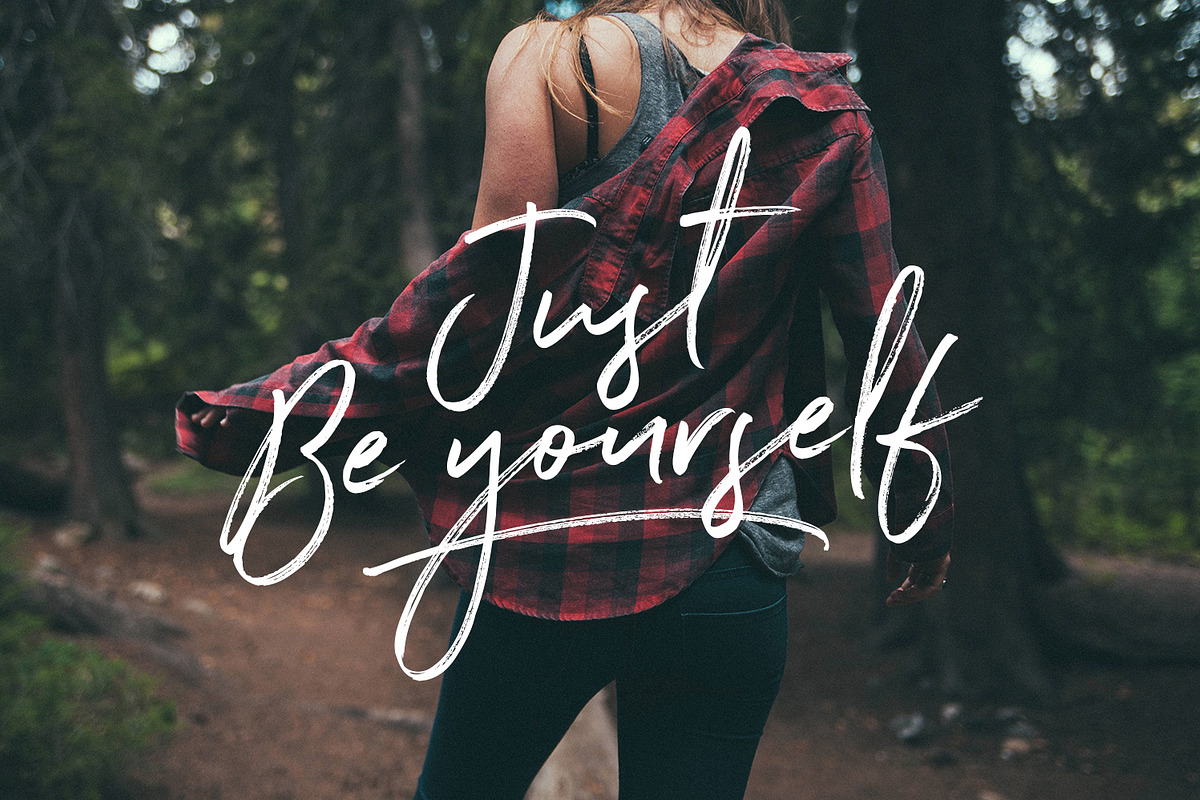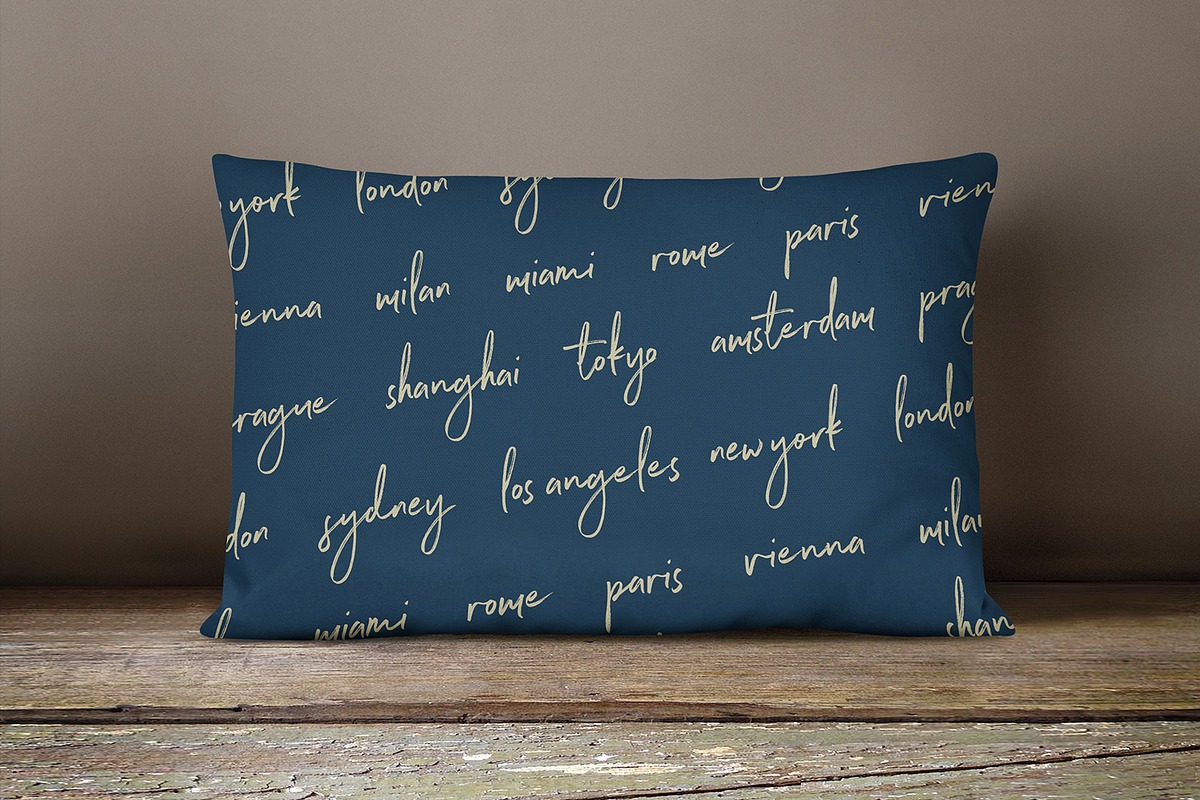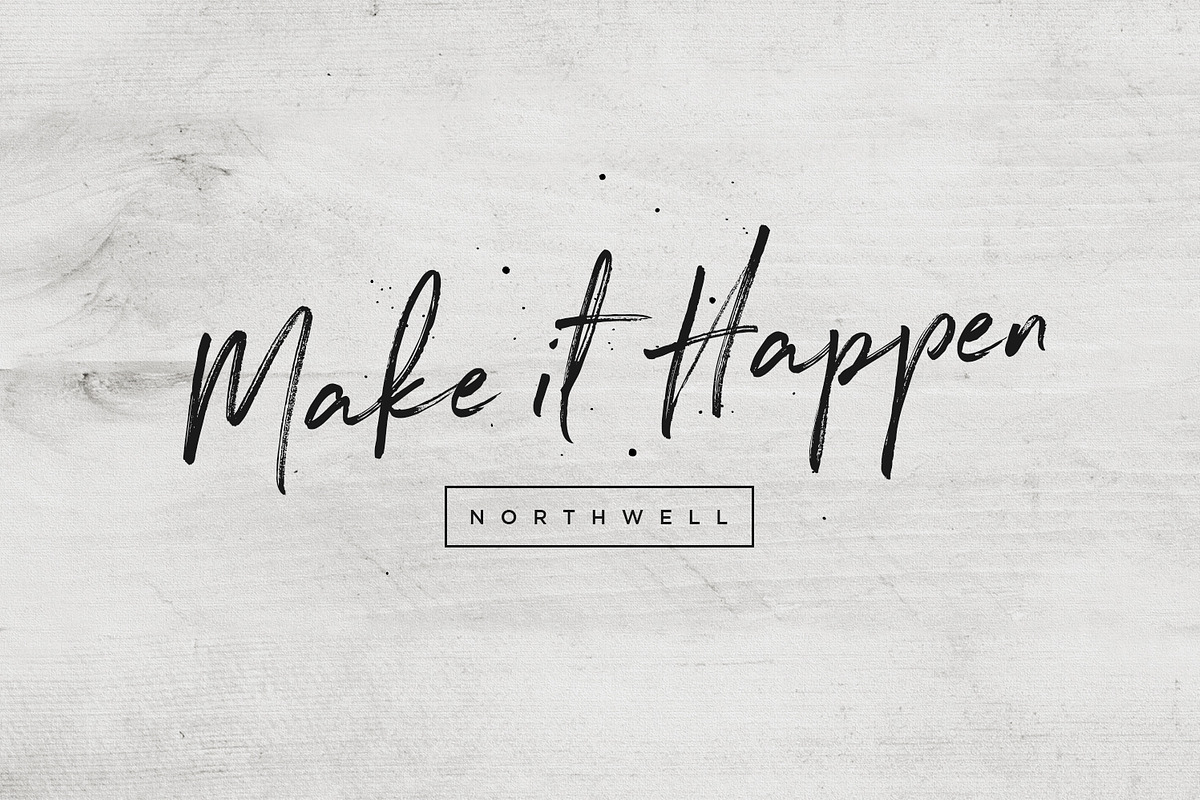
Northwell Font
Northwell is a rustic, dapper handwritten font with a personal charm. With quick dry strokes and a signature style, Northwell is perfect for branding projects, homeware designs, product packaging – or simply as a stylish text overlay to any background image.
It has now been updated to include 2 styles; a rustic textured version, and a totally clean & smooth version. This gives you the option to completely switch the style of your font at the click of a mouse, whether you’re looking for a more rustic, hand-made style, or a silky smooth finish.
Northwell Script Brush Font